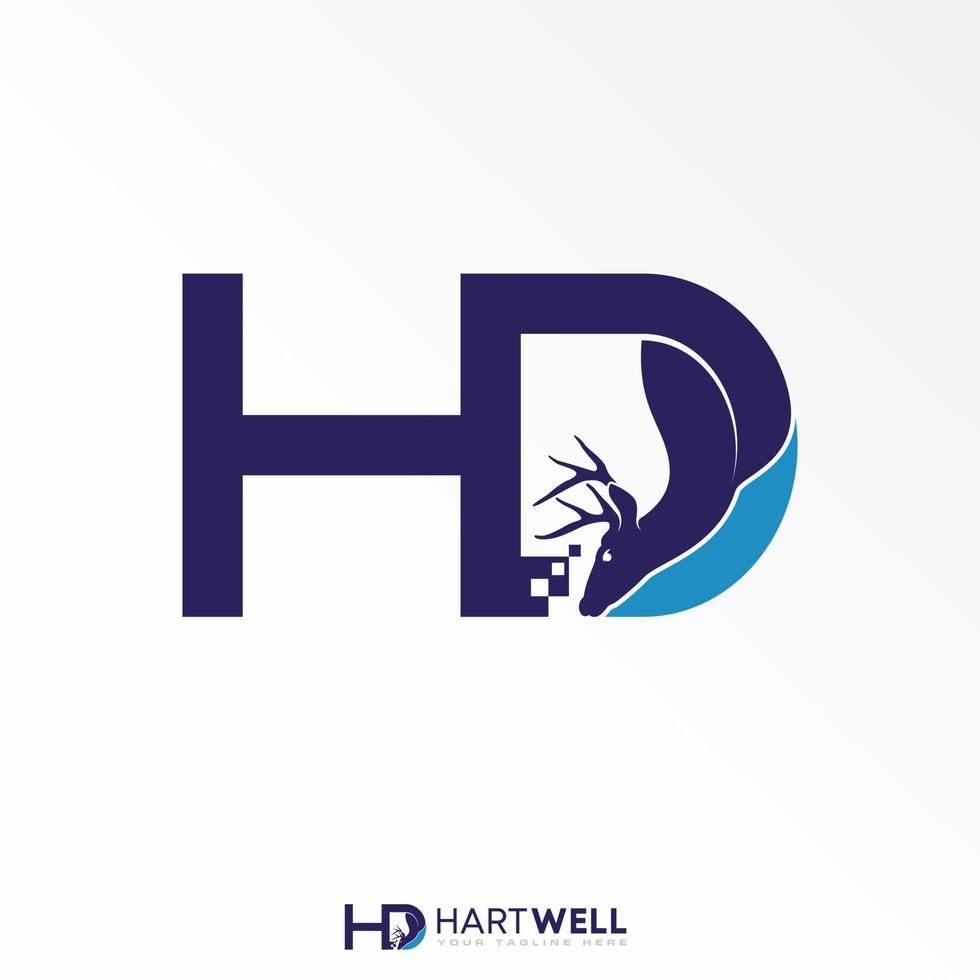
letter or word HD or AD line font line circle with deer head inside image graphic icon logo design abstract concept vector stock. Can be used as a symbol related to animal or initial Pro Vector